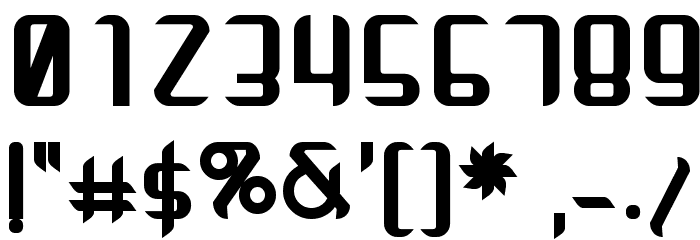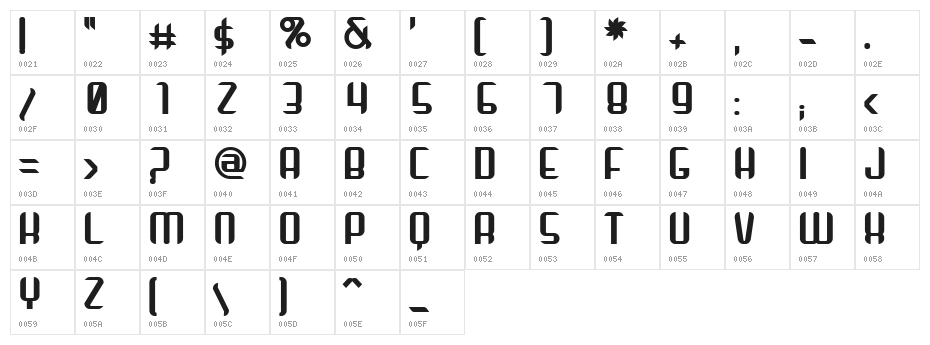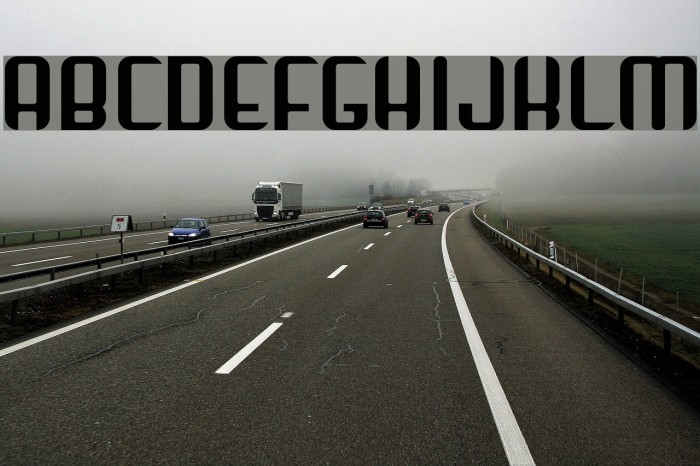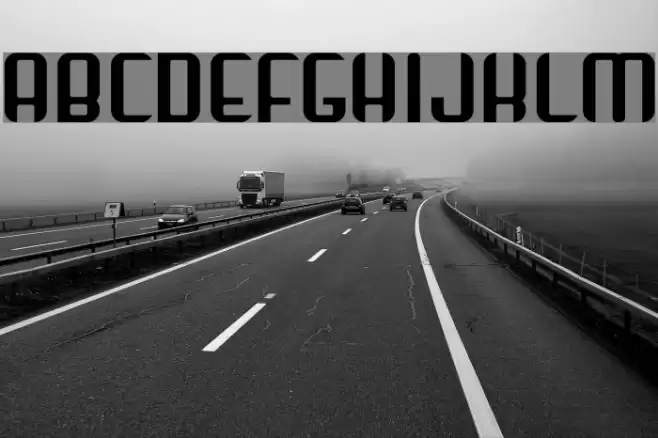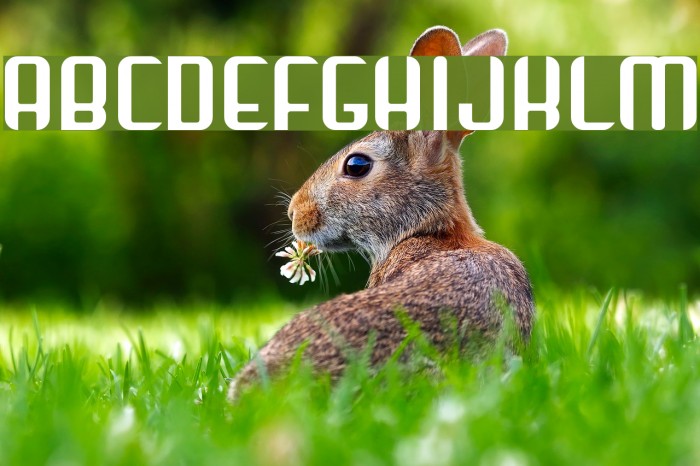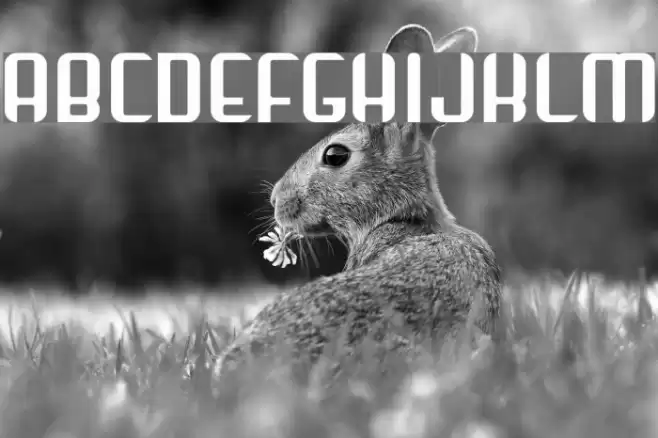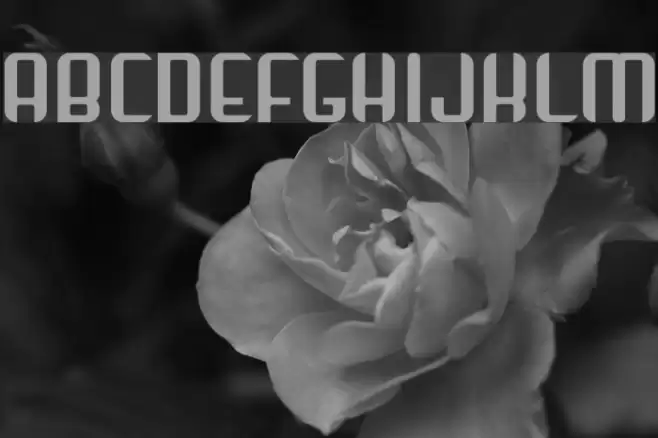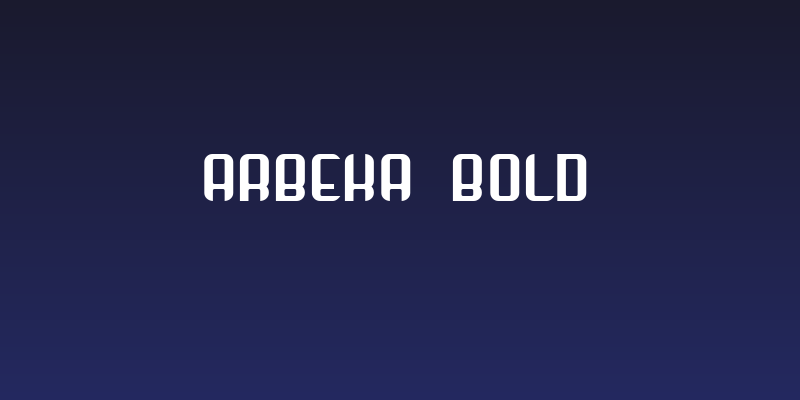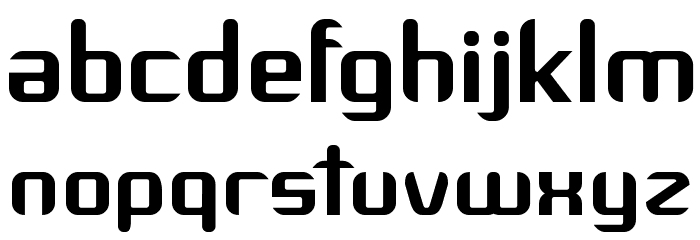
Arbeka Bold Font
Arbeka Bold Description
This font features a bold, modern design with rounded edges and a geometric structure. The uppercase letters are uniform in height, creating a cohesive and balanced appearance. The lowercase letters maintain a similar style, with a slight variation in height to enhance readability. The numerals are distinct and easy to read, matching the overall boldness of the font. Special characters are well-integrated, maintaining the geometric and rounded aesthetic. This font is versatile, suitable for various design projects that require a strong and contemporary look.
| Proposed Projects | Ideal for branding, headlines, posters, and digital media where a strong, modern presence is desired. |